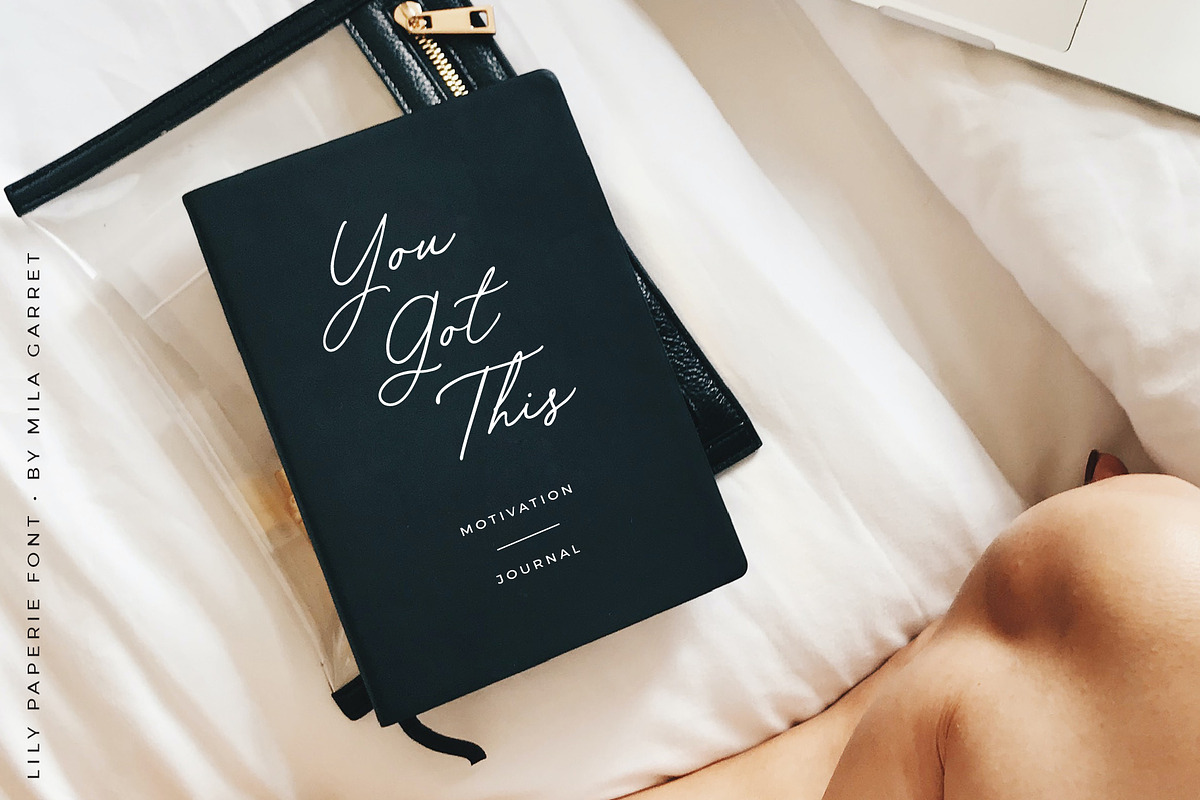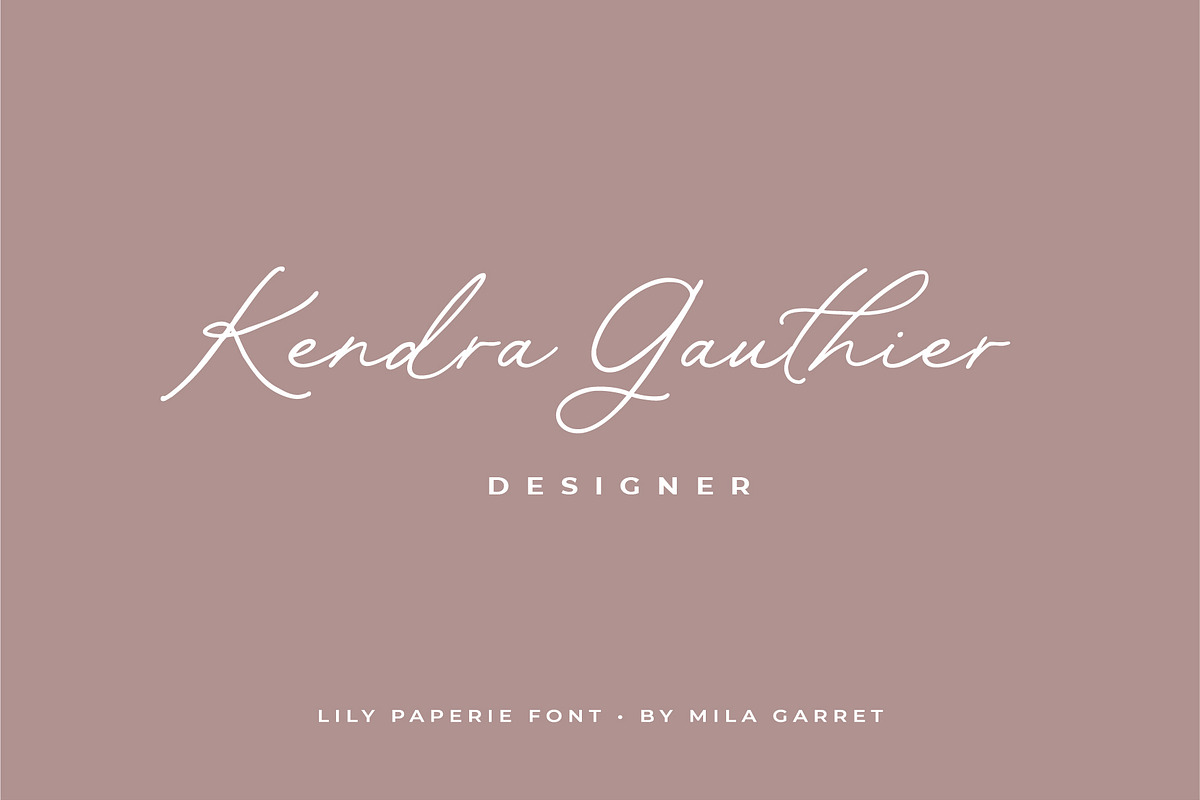
Lily Paperie is a classic, handwritten signature font with a monoline flair, perfect for weddings, handwritten signature logos, modern branding, stylish websites, social media graphics, and more! Lily Paperie is a no frills font, but it’s elegant in its simplicity.
- Full Set of standard alphabet and punctuation
- 9 ligatures and 5 alternate lowercase t glyphs, for varying crossbar lengths
- Multilingual Characters
Lily Paperie Script Font